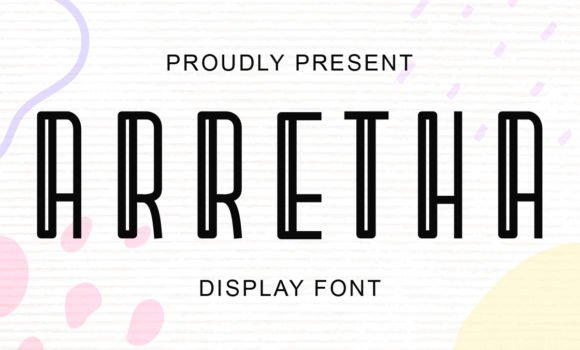
arretha
Arretha Font – Free Download Introduction to Arretha Font Arretha is a unique display font with an undeniably clean feel. 📸 Preview Gallery 3 images 📌 Product Name Arretha Font 👤 Author ABDStudio 📂 Category Explore ⬇️ Download Arretha Font